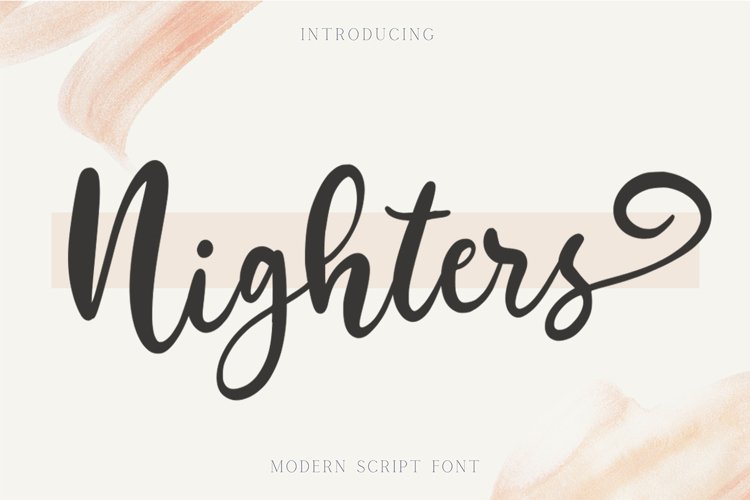
Nighters Bold Modern Script Fonts with calligraphy script style that is perfect for logos, posters, signage, and more! It’s best used for logos, wedding stationery, social media, and quotes. Test it out in the box above to see how it would look for your next project!
Sing Song it comes in with alternate characters (OpenType feature). With multilingual support, this font also suitable to be combined with san-serif to get an extraordinary result for your design projects.